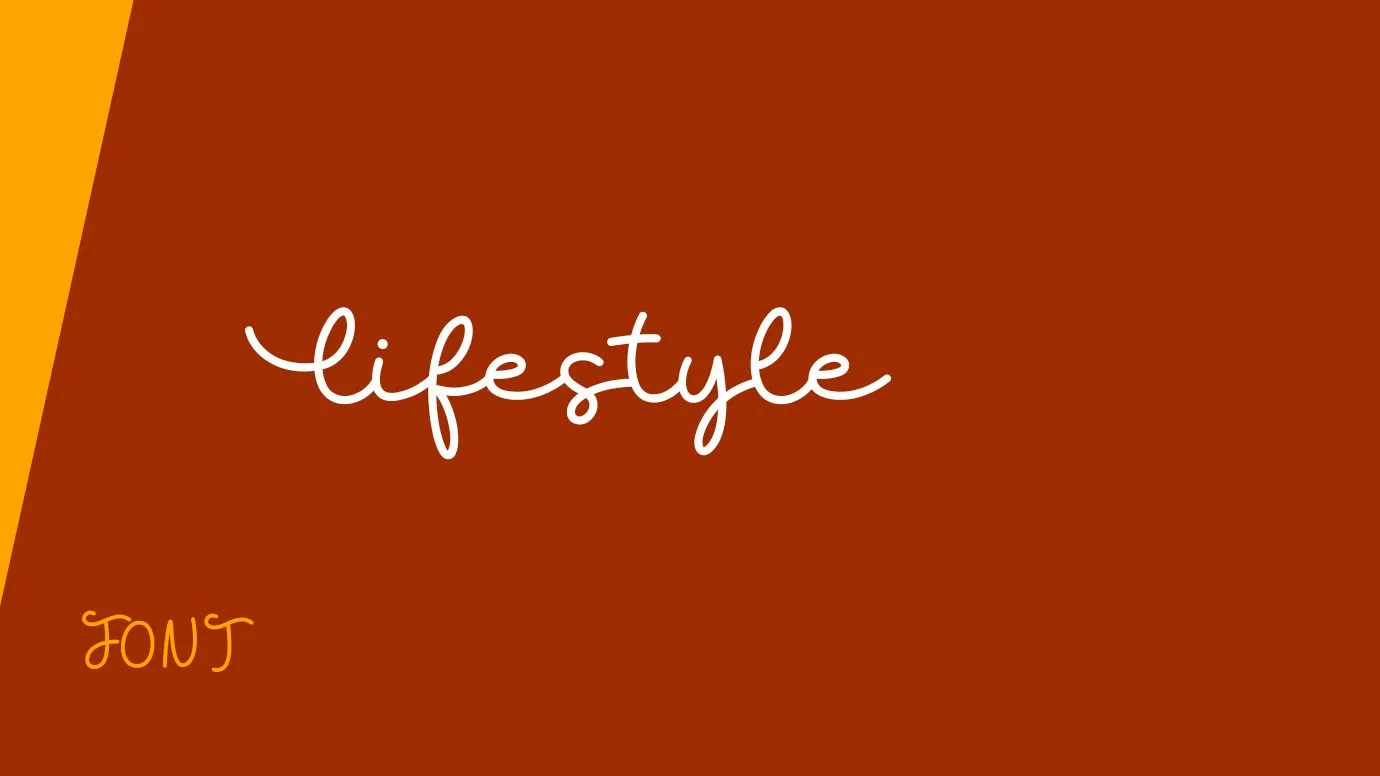
Trully Font is a handwritten font created by British typeface designer Matthew Carter in 2004. The font is named after the city of Trully, France, where Carter lived for a time.
It was designed to be used as a script font and is best suited for headlines and short blocks of text. The font’s distinctive “hand-drawn” look makes it ideal for giving a personal touch to printed materials such as invitations, greeting cards, and other stationery.
While Trully Font is not currently widely used, it has been praised by typographers for its unique style and overall quality. If you are looking for a font that will give your documents and projects a one-of-a-kind look, it may be a perfect choice.
It is best for different purposes like headlines, short blocks of text, invitations, greeting cards, and other stationeries. While it is not widely used today, it has been praised by many typographers for its unique style and excellent quality. If you want to add a personal touch to your documents or projects, this style may be the perfect choice for you! Try it out
Creator of Trully Font
Trully Font is a handwritten font created by British typeface designer Matthew Carter in 2004. The font is named after the city of Trully,
Trully Font Family Includes
This single, appealing style incorporates several elements, such as capital and lowercase letters, numbers, punctuation, characters, special symbols, glyphs, and language support.
What is Trully Font?
It is a handwritten font created by British typeface designer Matthew Carter in 2004. The font is named after the city of Trully, France, where Carter lived for a time.
How is Trully Font used?
It was designed to be used as a script font and is best suited for headlines and short blocks of text. The font’s distinctive “hand-drawn” look makes it ideal for giving a personal touch to printed materials such as invitations, greeting cards, and other stationery.
What are the benefits of using Trully Font?
This typeface is not currently widely used, it has been praised by typographers for its unique style and overall quality. If you are looking for a font that will give your documents and projects a one-of-a-kind look, it may be a perfect choice. You can utilize it for small projects and see how you like it before deciding whether or not to use it for larger ones.
Use it for headlines and short blocks of text. It is suitable for invitations, greeting cards, and other stationery. This will give you a chance to see how you like the font before deciding whether or not.